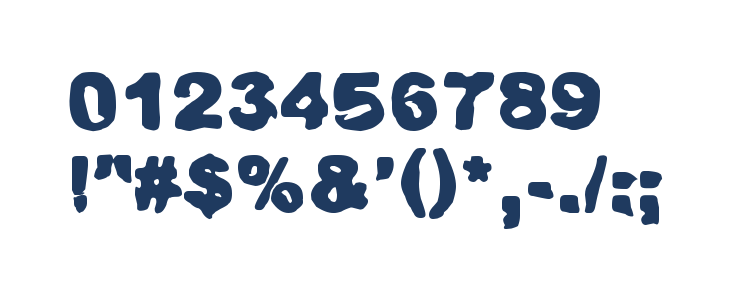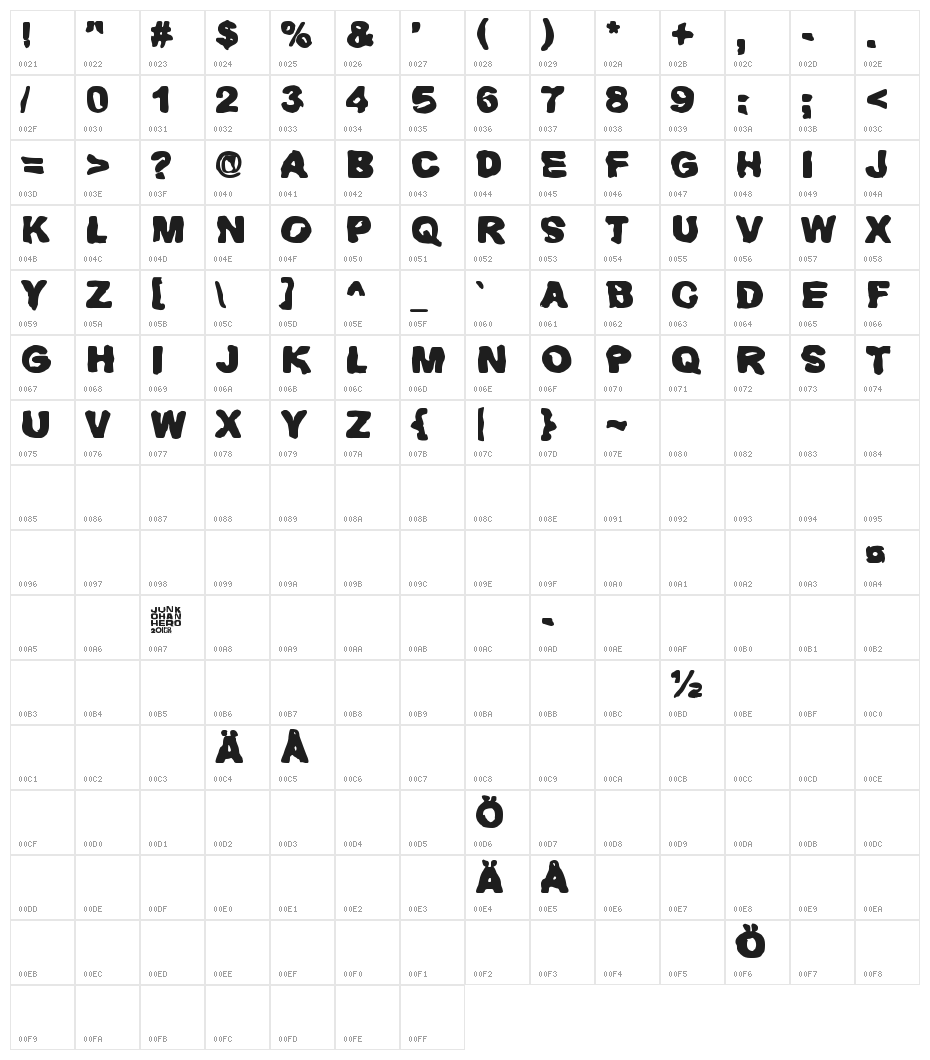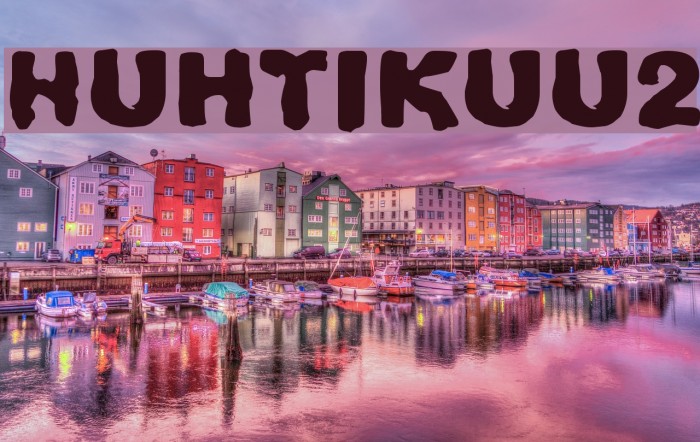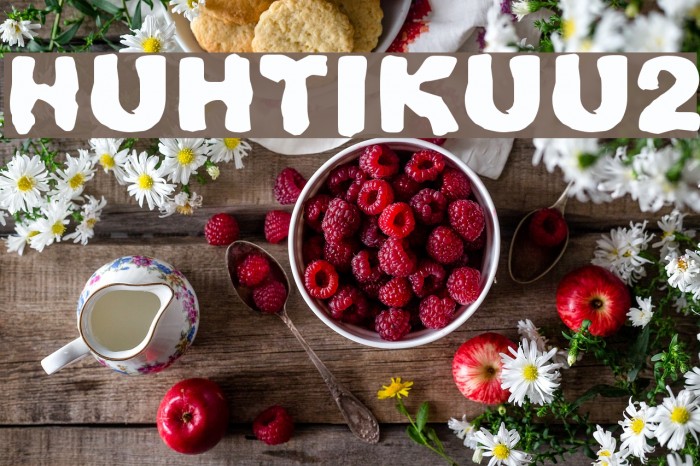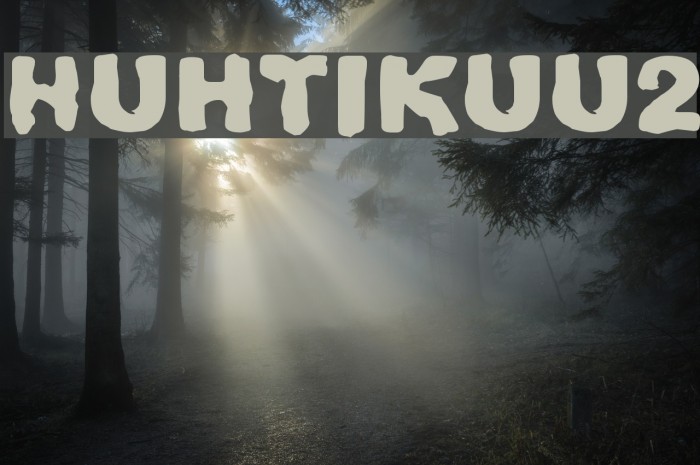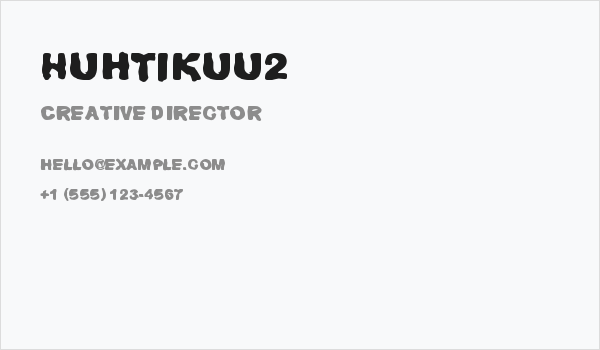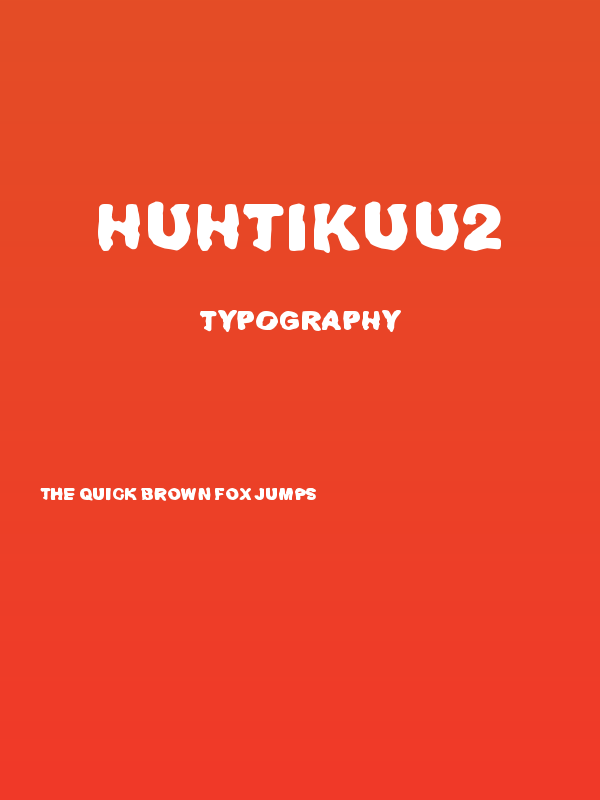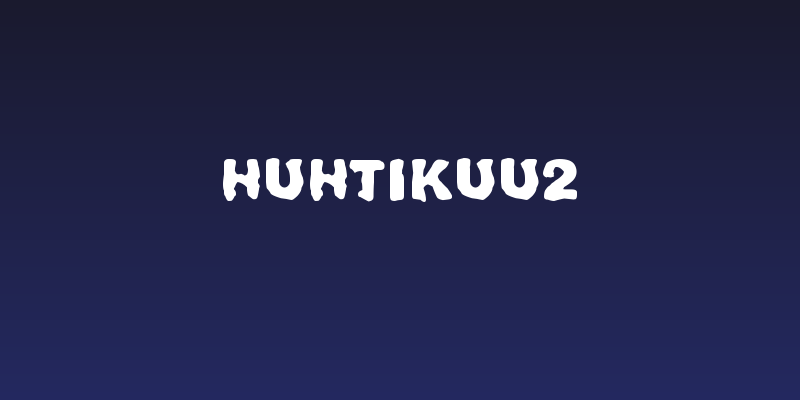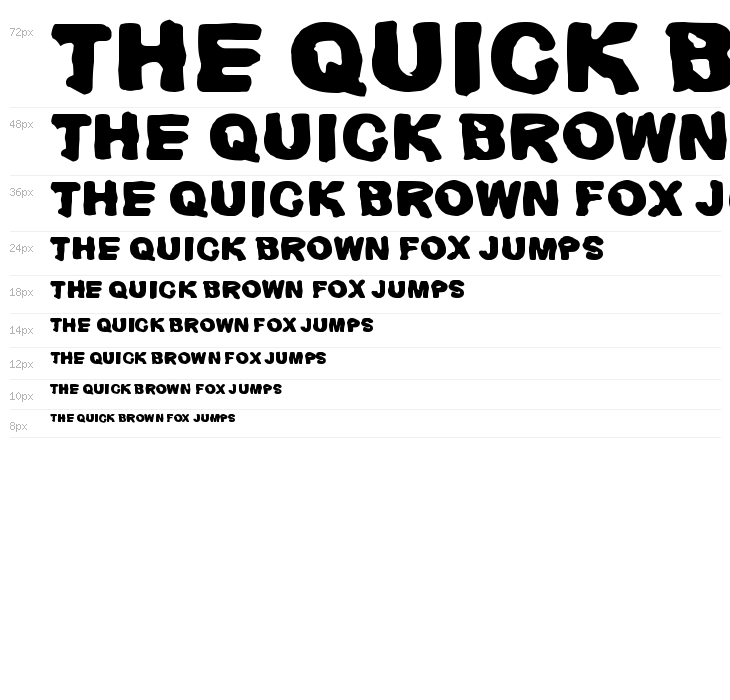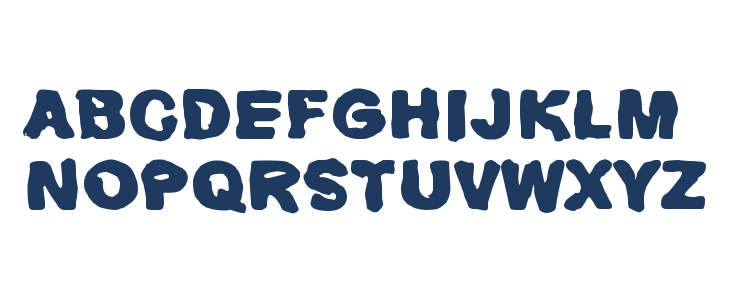
Huhtikuu2 Font
Huhtikuu2 Description
This font features a bold and playful style with irregular, organic shapes that give it a unique, hand-drawn appearance. The characters are thick and rounded, with a slightly uneven baseline that adds to its whimsical charm. The uppercase and lowercase letters maintain a consistent weight, creating a cohesive look across the alphabet. The numbers and special characters follow the same design principles, ensuring uniformity throughout. This font's distinctiveness makes it stand out, ideal for projects that require a touch of creativity and fun.
| Overall Style | Playful, Creative |
| Proposed Projects | Ideal for children's books, playful branding, posters, and creative projects. |